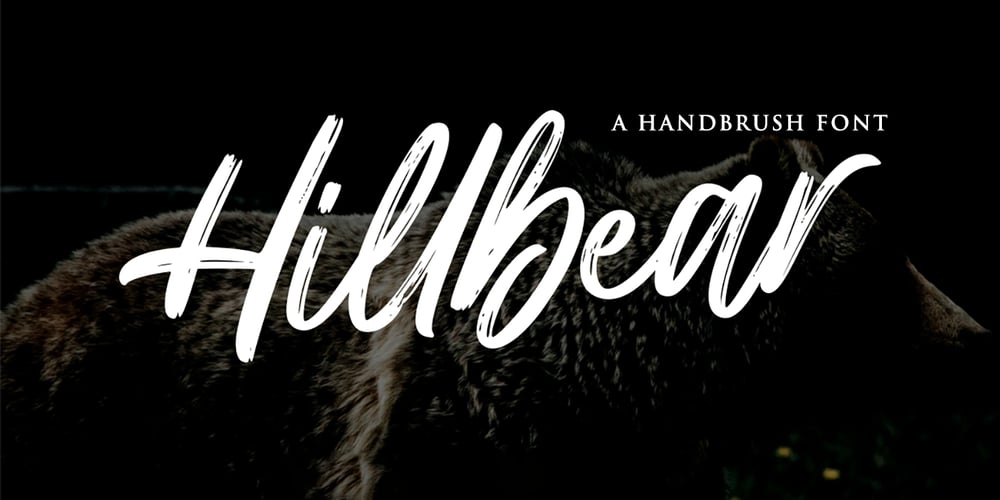
Hillbear
Hillbear font
Hillbear Font Family was designed by Virgiawan Listanto and published by Stringlabs Creative Studio. Hillbear contains 1 styles and family package options. Hillbear is an incredibly charming script font that will turn any design project into a true piece of art. Hillbear Path is a flowing and elegant handwritten font, created with the help of a brush pen. Get inspired by its unique and beautiful style and add it to your favorite designs!